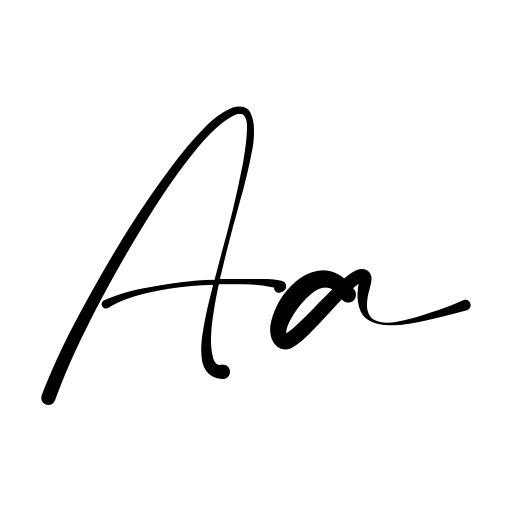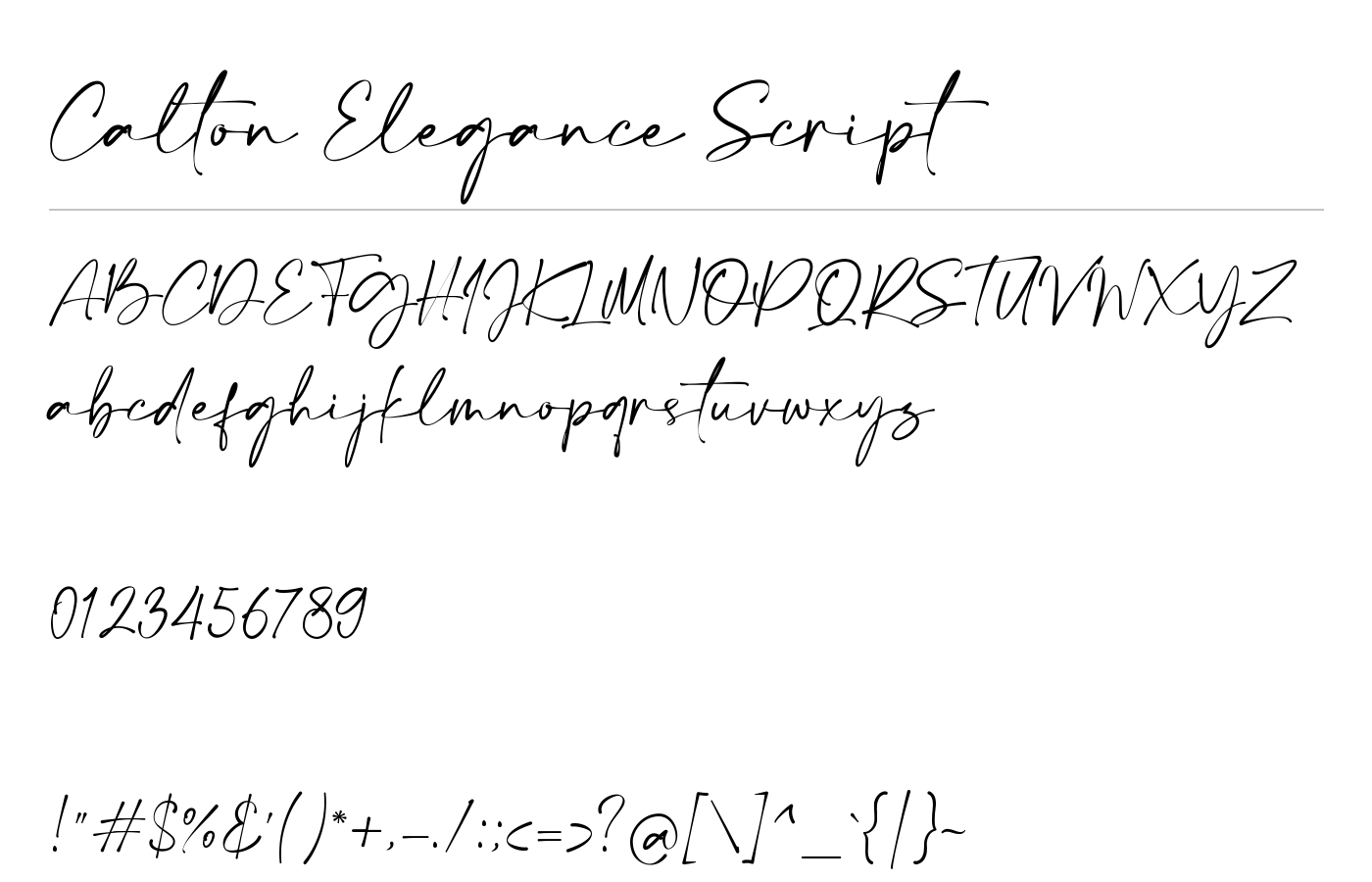
Calton Elegance Script is a delicate, handwritten script font with a slender weight and graceful flow, featuring tall, narrow letterforms and smooth, natural strokes. Its elegant and modern style makes it perfect for luxury branding, invitations, and fashion editorial use where a personal yet refined touch is desired. This font works well in headlines and logos, adding a sophisticated, artistic flair to any design.
Calton Elegance Script Font
About Calton Elegance Script Font